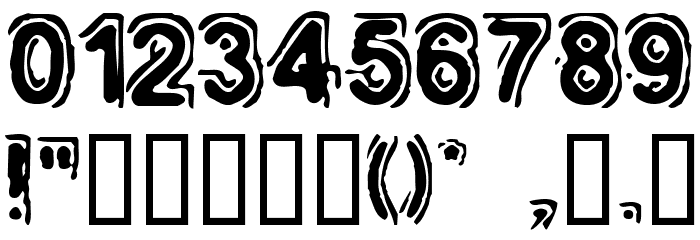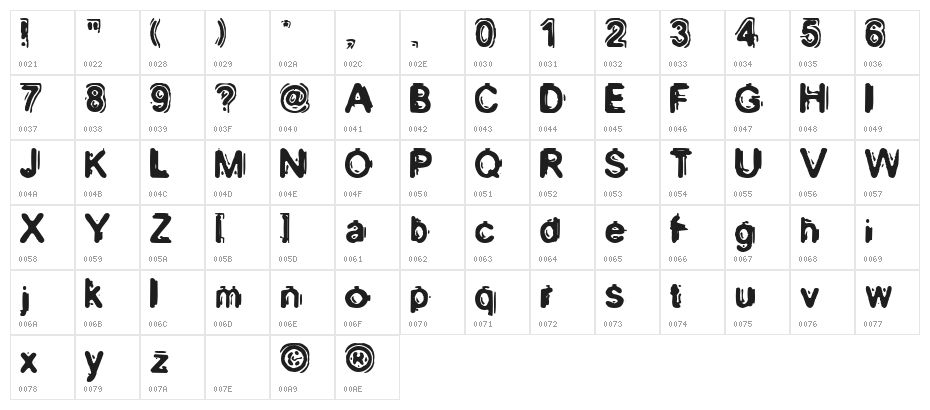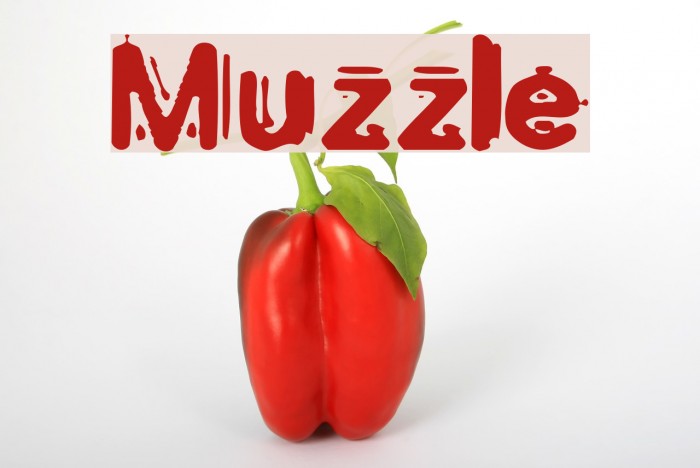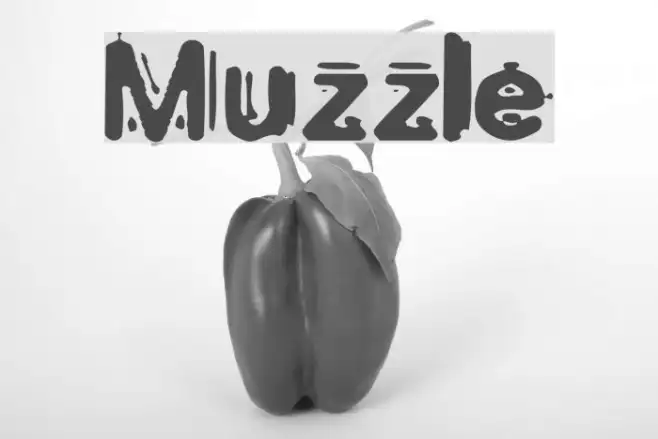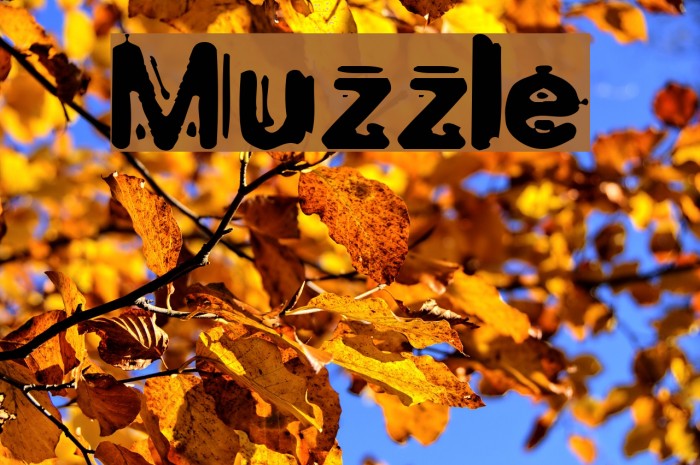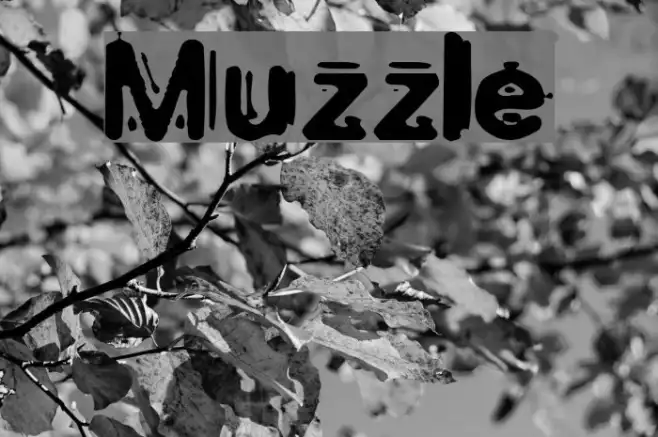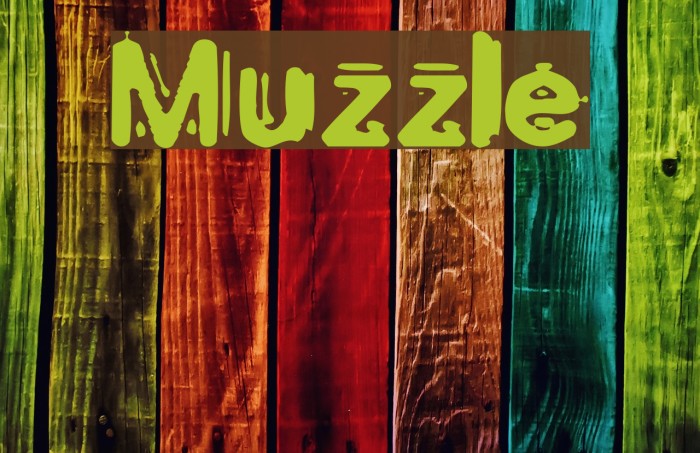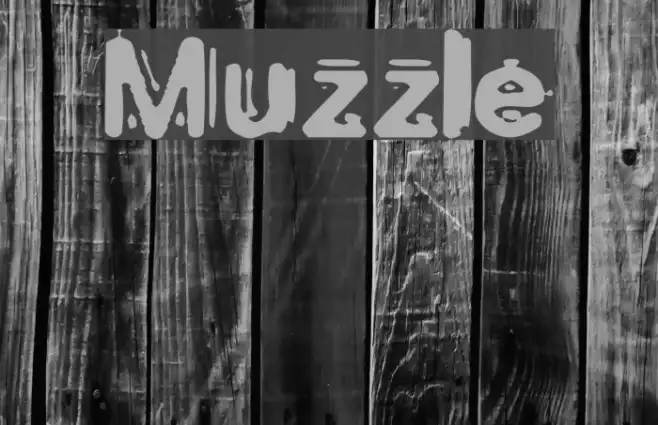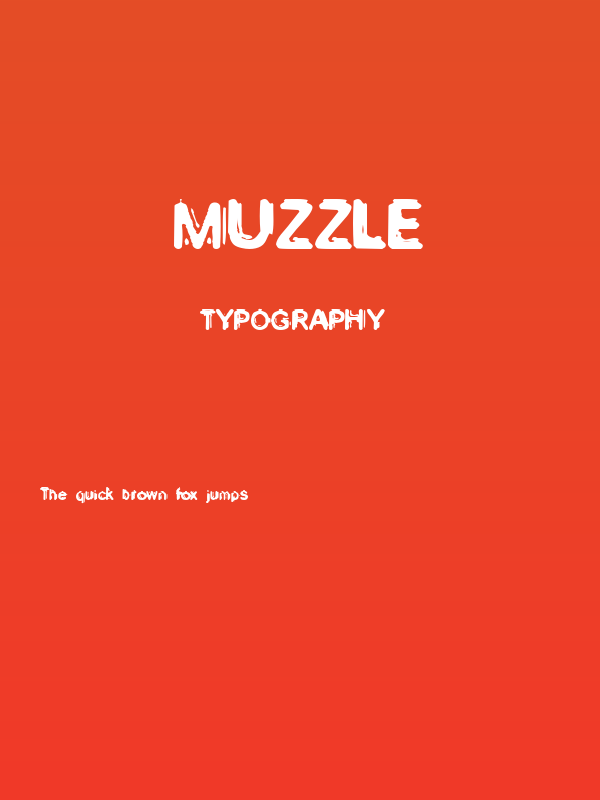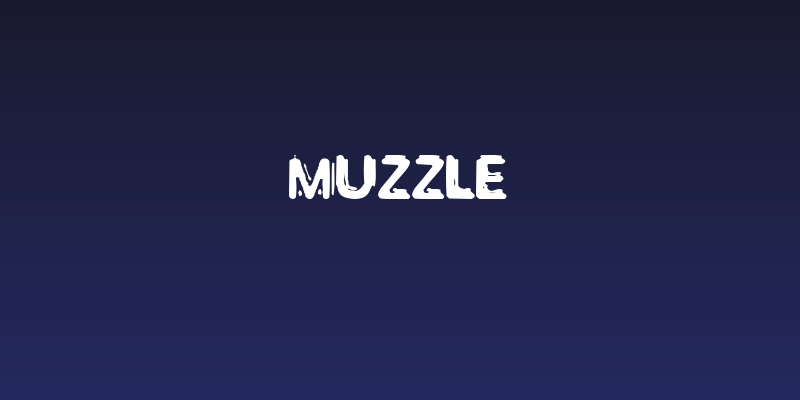
Muzzle Font
Muzzle Description
This font features a bold and distressed style, characterized by its irregular edges and splatter-like details. The uppercase and lowercase letters maintain a consistent height, giving it a uniform appearance despite the chaotic design. The numbers and special characters follow the same aesthetic, ensuring a cohesive look across all elements. This font's unique style makes it stand out, offering a grungy and artistic vibe that can add a dynamic touch to any project. The boldness of the characters ensures readability while the distressed elements add a layer of visual interest.
| Overall Style | Grunge, Artistic |
| Proposed Projects | Ideal for music album covers, streetwear branding, graffiti art, and edgy poster designs. |